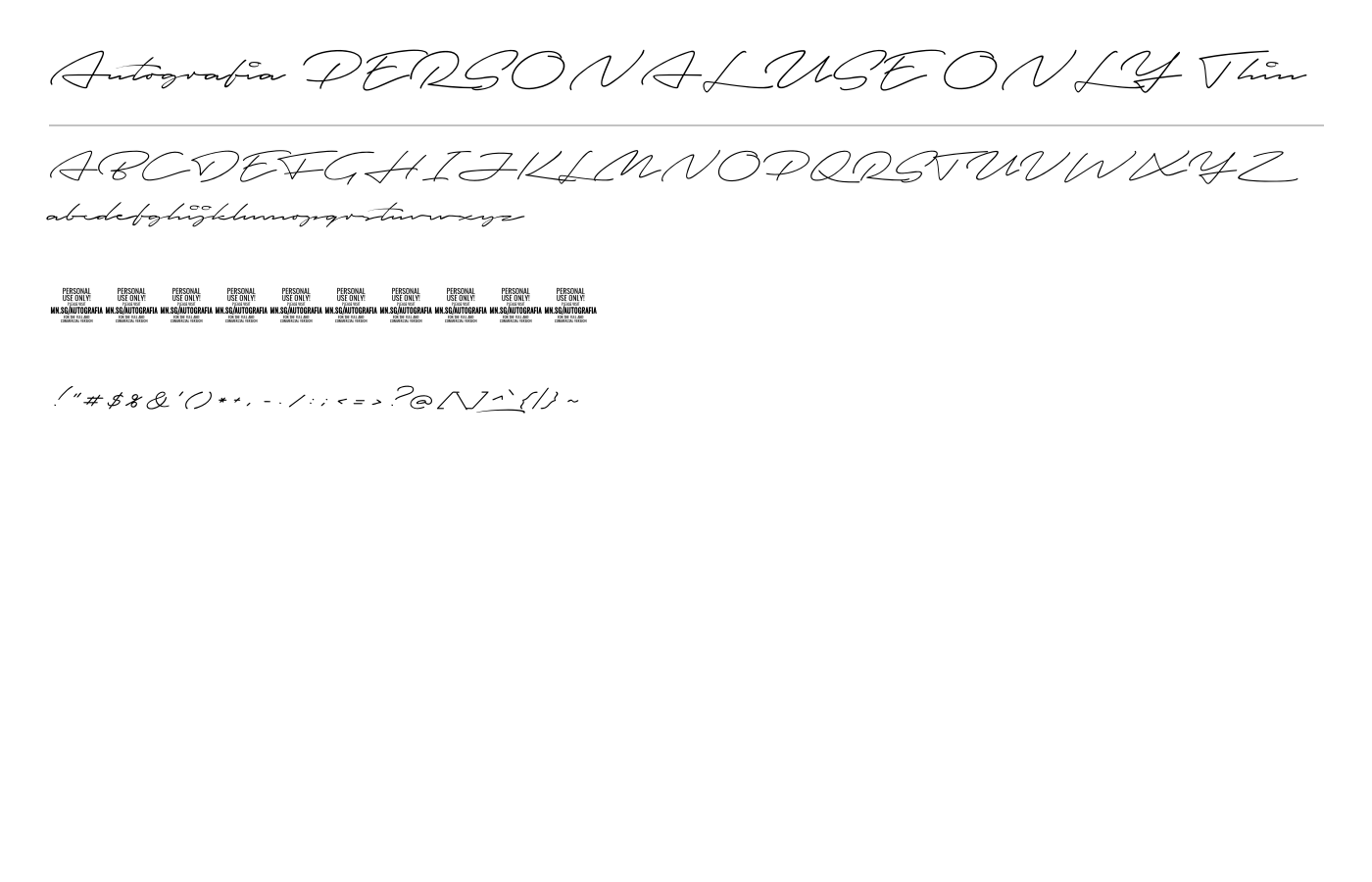
Autografia is a delicate, thin script font that resembles elegant, flowing handwriting with a personal touch. Its light weight and airy letterforms create a stylish, refined look perfect for invitations, branding, and artistic projects that want to convey sophistication and creativity. This font works beautifully in contexts where a graceful, handcrafted feel is desired.
Autografia PERSONAL USE ONLY Font
About Autografia PERSONAL USE ONLY Font
| Font family | Autografia PERSONAL USE ONLY Font |
| Font subfamily | Thin |